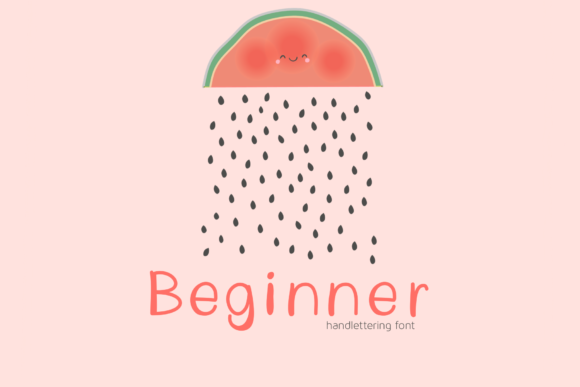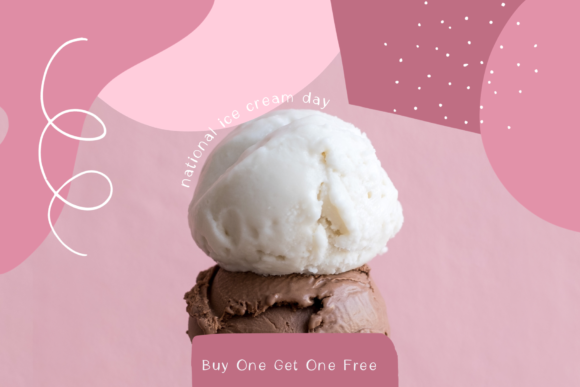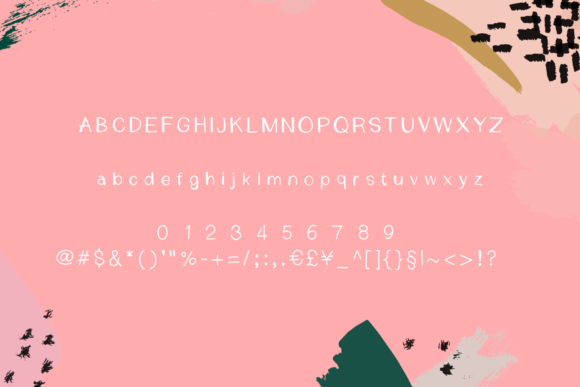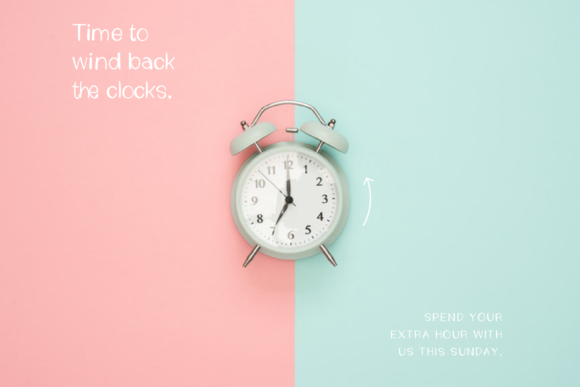
Beginner Font
About Beginner Font
Beginner is a sweet and friendly handwritten font. Its natural and unique style makes it incredibly fitting to a large pool of designs. The only limit is your imagination!